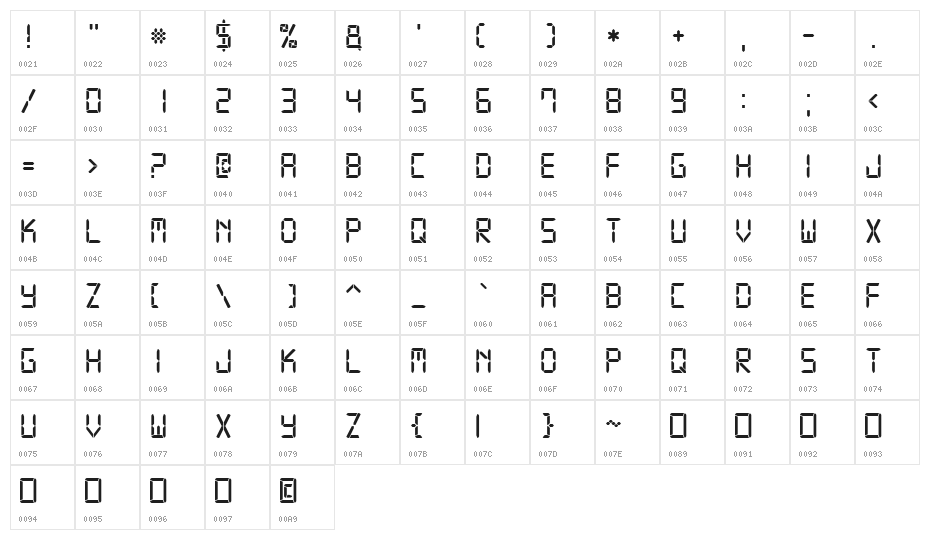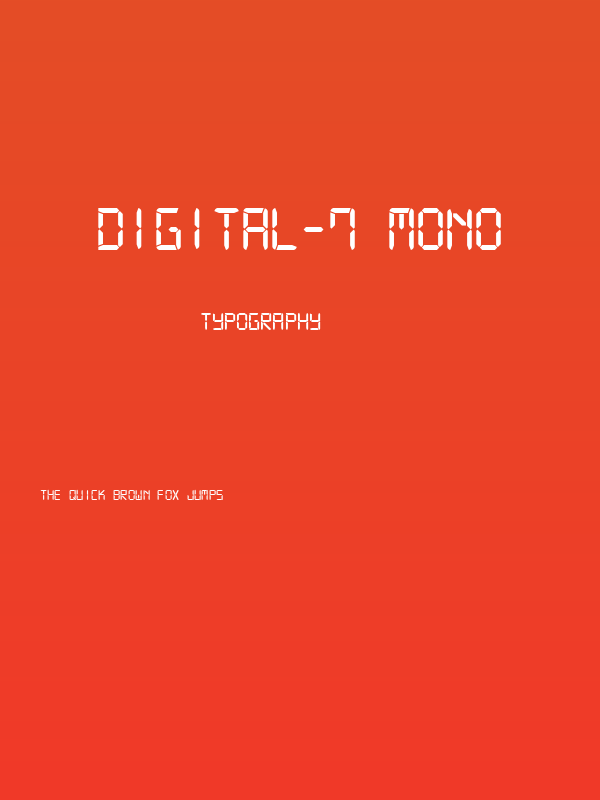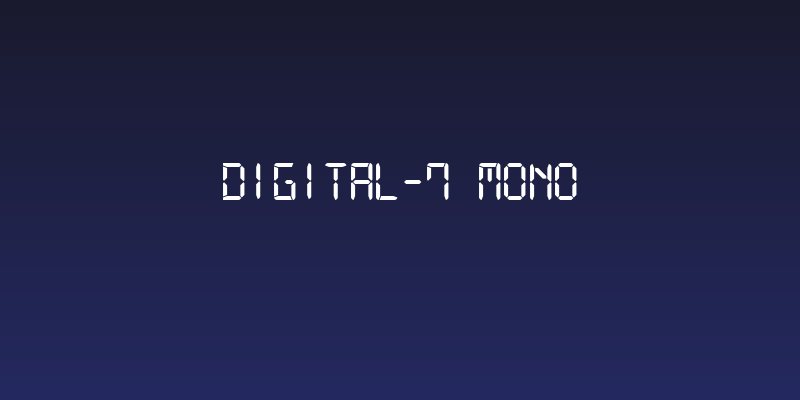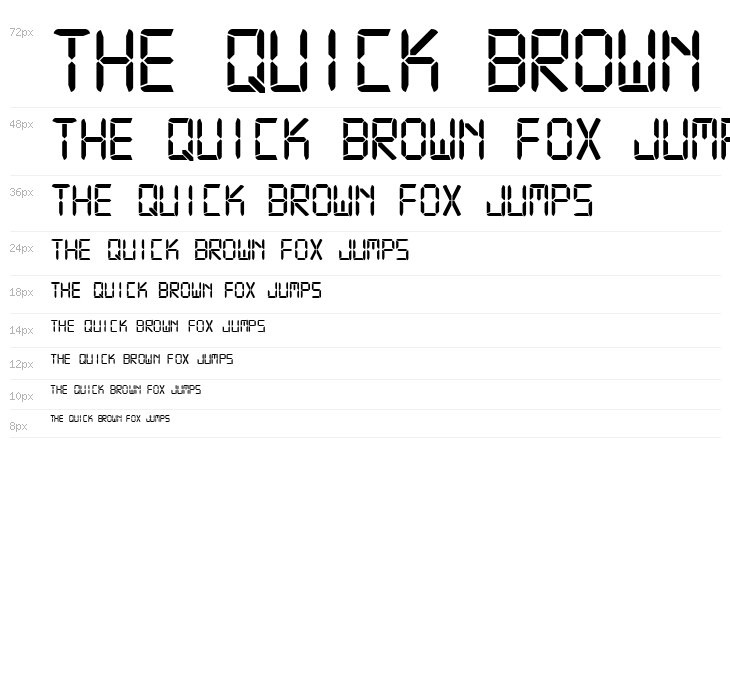
Digital-7 Mono Font
Digital-7 Mono Description
This font features a digital, seven-segment display style reminiscent of classic LED screens found in digital clocks and calculators. Each character is constructed using a series of straight lines and angles, mimicking the segmented look of electronic displays. The design is highly geometric and uniform, with consistent line thickness and spacing. This font captures a retro-futuristic aesthetic, making it ideal for projects that require a technological or vintage digital feel. The characters are monospaced, ensuring equal width for each letter and number, which enhances readability in digital formats.
| Overall Style | Retro, Futuristic |
| Use Case | Digital displays, Tech branding, Retro designs |
| Proposed Projects | Ideal for digital interfaces, retro-themed designs, tech-related branding, and any project requiring a digital or futuristic aesthetic. |